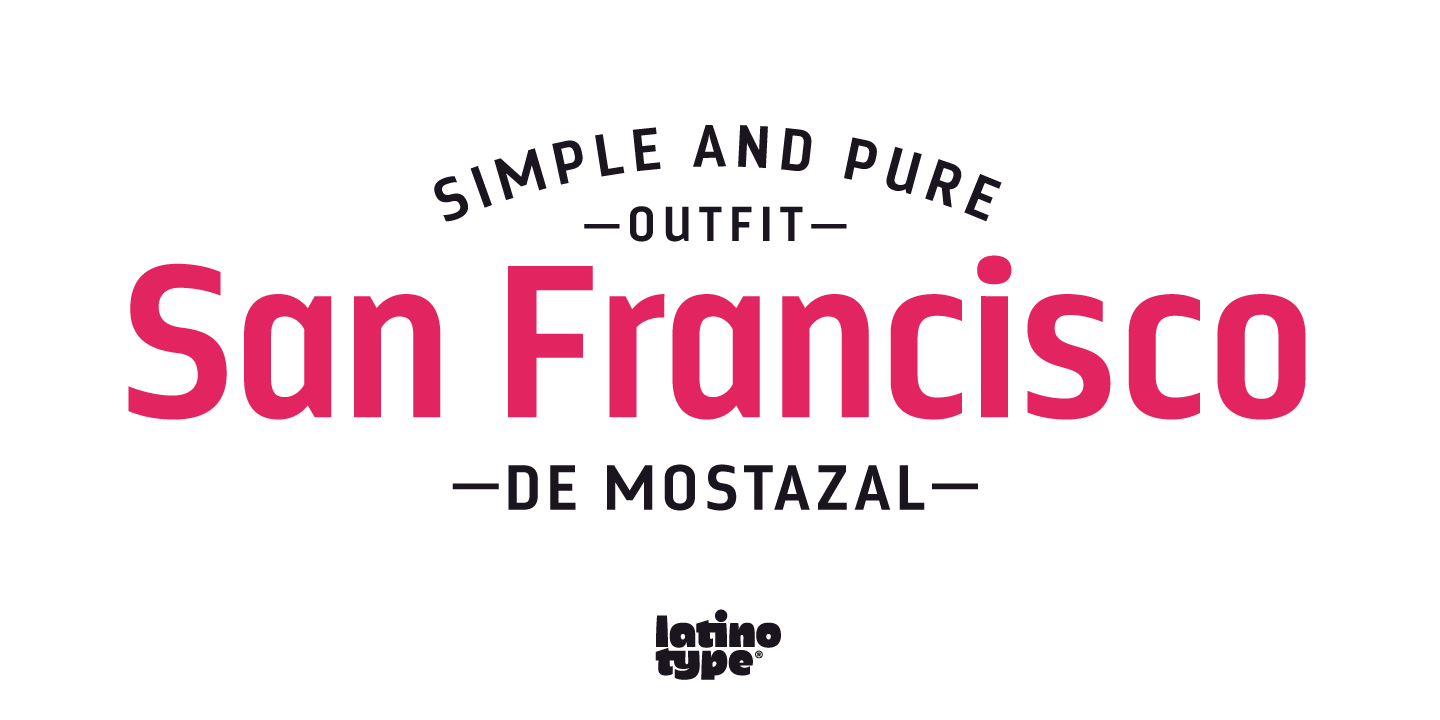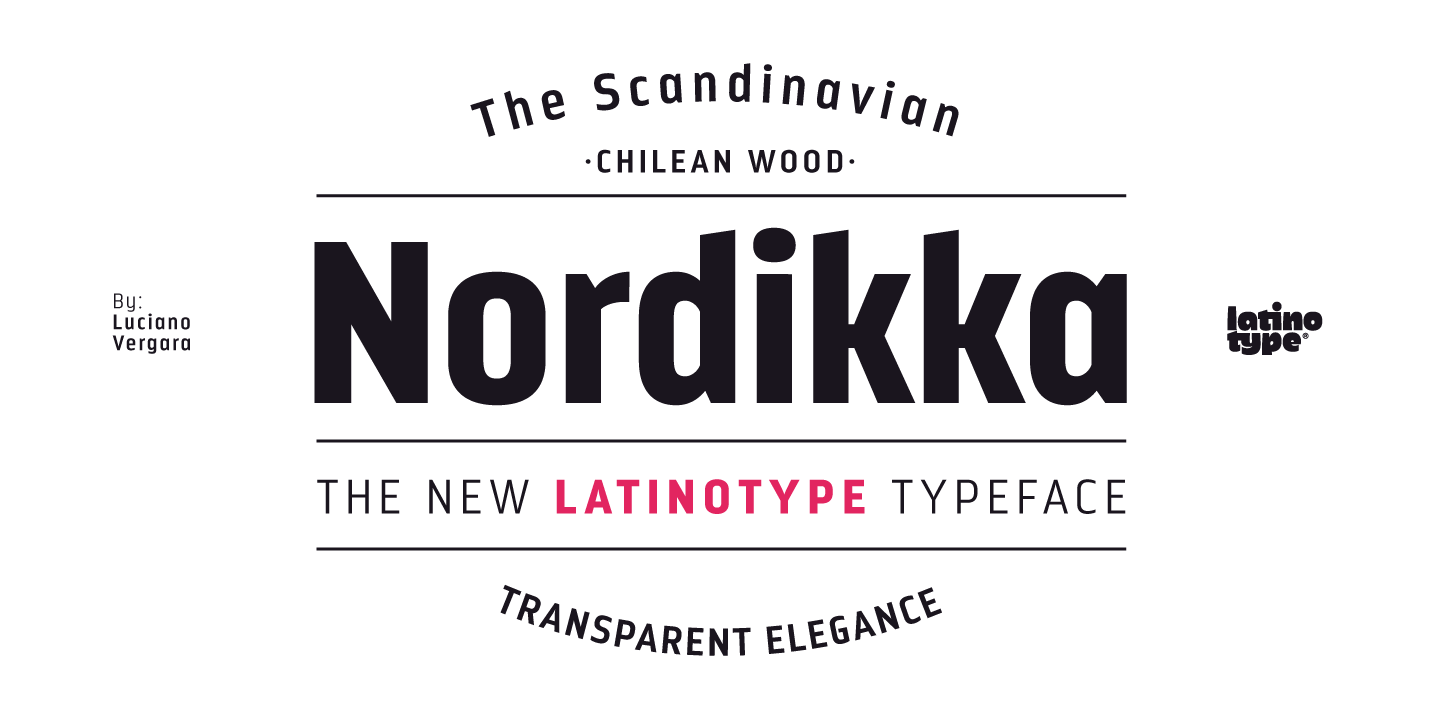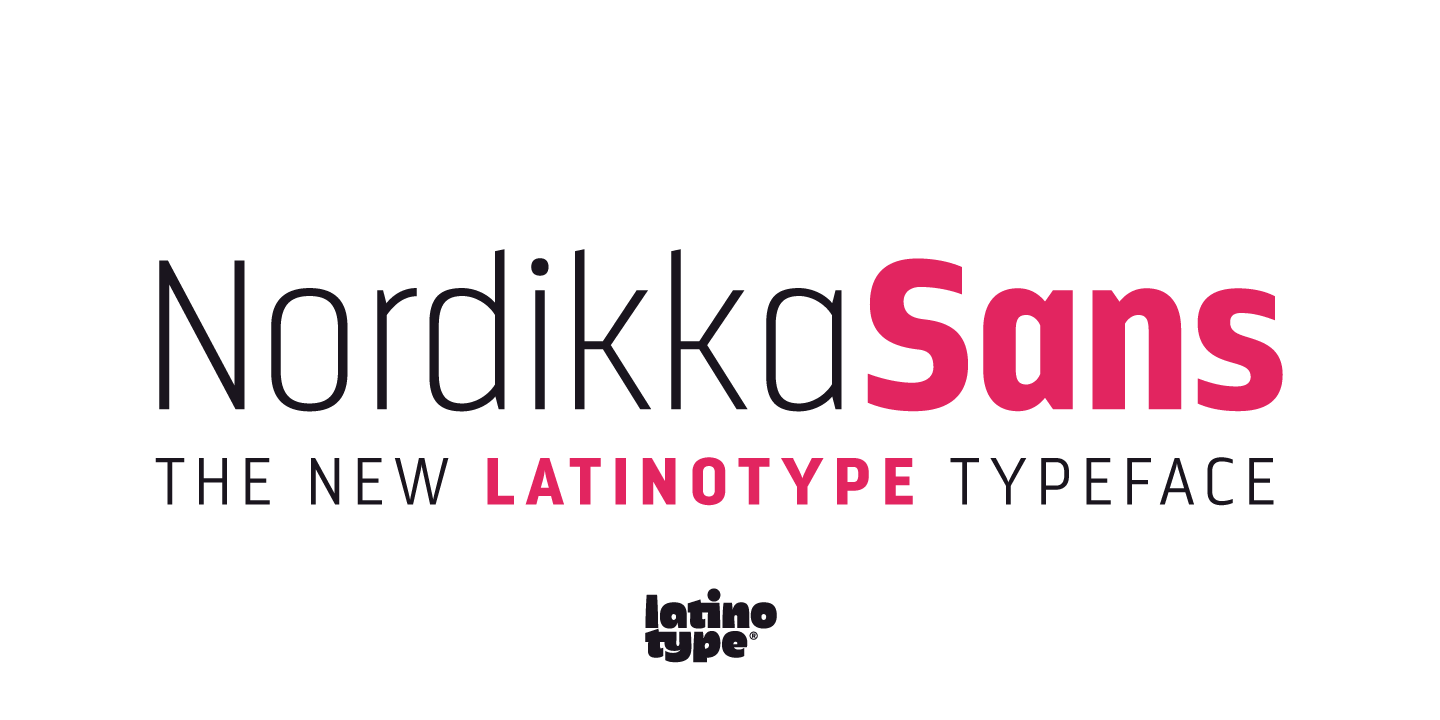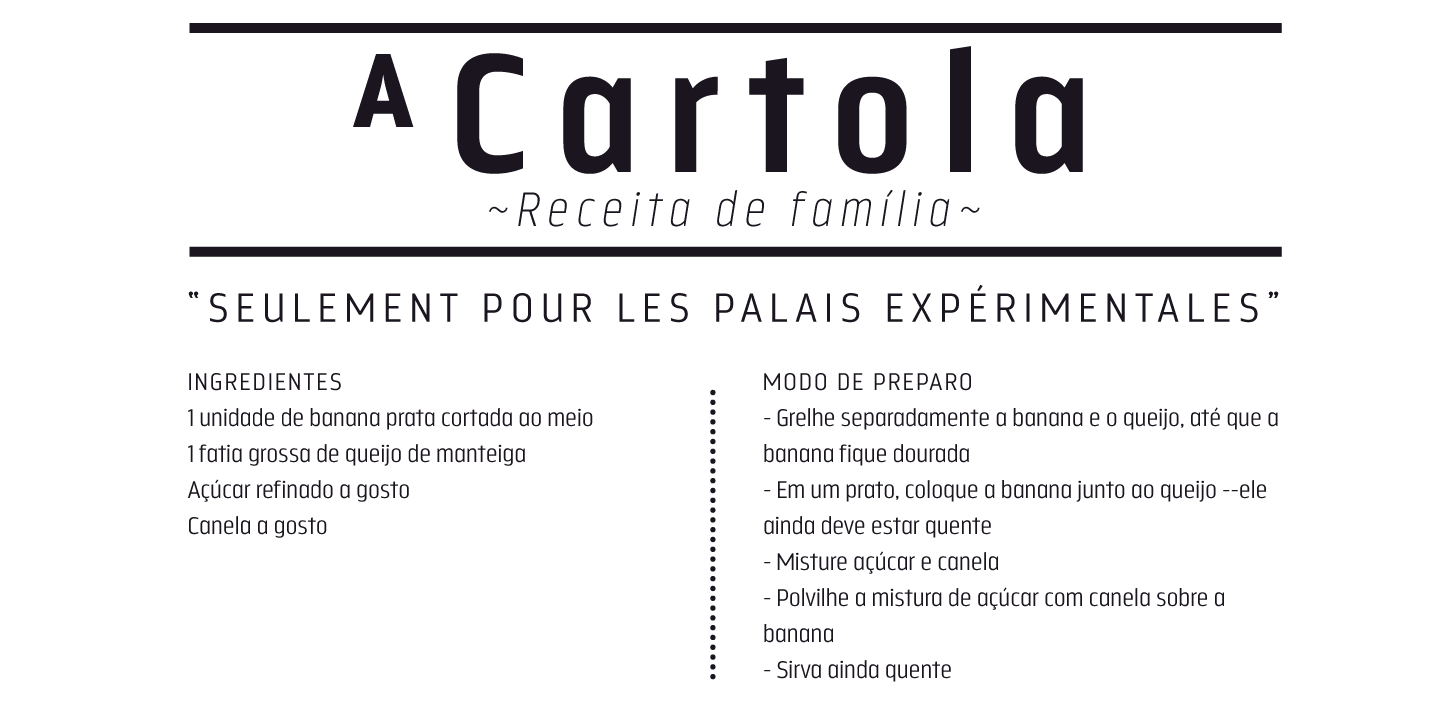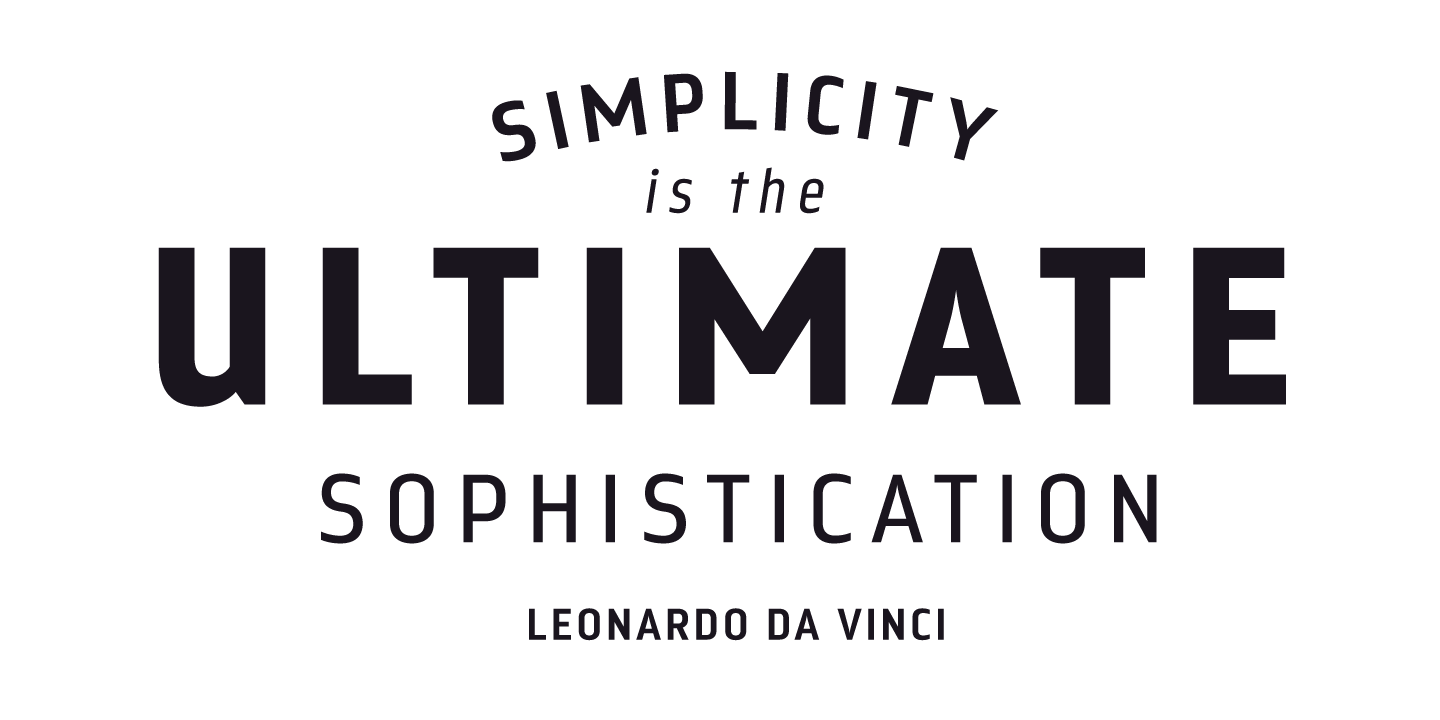
Nordikka Family (10 fonts)
Nordikka is inspired by Scandinavian culture and its globally recognized design, which is characterized by pure, clean and clear forms. The final stage of the design process was completed in Olinda, Brazil, what inspired some of the words in the font specimens, allowing for reflecting an image of people’s daily habits and customs.